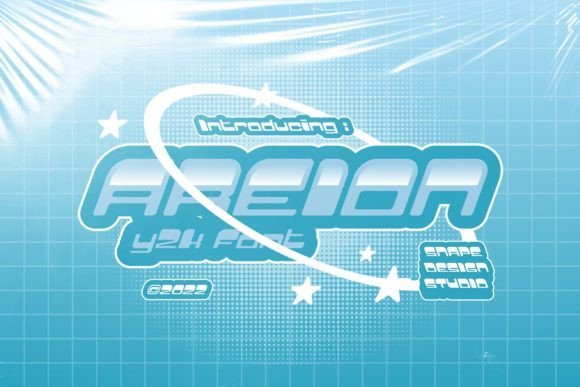
Timeless Vibes from the Future: Uncovering the Magic of Areion Font
Who among us hasn’t been transported back to the neon-lit nights of the Y2K era, surrounded by pulsating beats and futuristic visuals? It’s a time when music and pop culture collided to create something truly innovative. As designers, we often find ourselves nostalgic for those early days of digital experimentation, when the boundaries of creativity knew no limits.
Enter Areion Font, a typographic masterpiece that embodies the essence of that bygone era. This display font is the perfect companion for technology, digital, and space/galaxy-themed projects, injecting a much-needed dose of innovation and futurism into your designs.
What makes Areion Font so valuable for designers is its ability to evoke a sense of timelessness, while still feeling refreshingly modern. Its unique blend of retro-futurism and cutting-edge style makes it an instant hit with creatives looking to push the boundaries of their work.
Areion Font Key Features
- Unique Characteristics: The font features a unique blend of classic and modern elements, with intricate details and subtle nuances that set it apart from other fonts.
Areion Font Review
Overall, I think Areion Font is a decent choice for various design projects. It has a unique look that can work well in certain contexts.
- Areion Font offers a range of weights and styles, making it versatile for different design needs.
- The font’s design is clean and modern, which can be appealing for contemporary projects.
- It supports multiple languages, making it a good choice for international designs.
- The font may not be the best choice for small text sizes due to its relatively low x-height.
- The Areion Font’s design might not be suitable for formal or professional projects due to its edgy feel.
In conclusion, Areion Font is a decent option for designers who need a unique font for a specific project. However, it may not be the best choice for every design scenario. It’s essential to consider the font’s limitations and suitability for your project before making a decision.
Getting the Most Out of Areion Font
For optimal results, use Areion Font in combination with high-quality images and graphics.
Experiment with different font sizes and styles to achieve the desired effect.
Consider using Areion Font in conjunction with other design elements, such as shapes and icons, to create a visually appealing design.
Areion Font is ideal for:
- Business cards and resumes
- Infographics and presentations
Alternatives to Areion Font
Comparison: While Areion Font has a more modern and edgy feel, Playfair Display is more traditional and ornate. If you want to create a sense of luxury and sophistication, Playfair Display is a better choice.